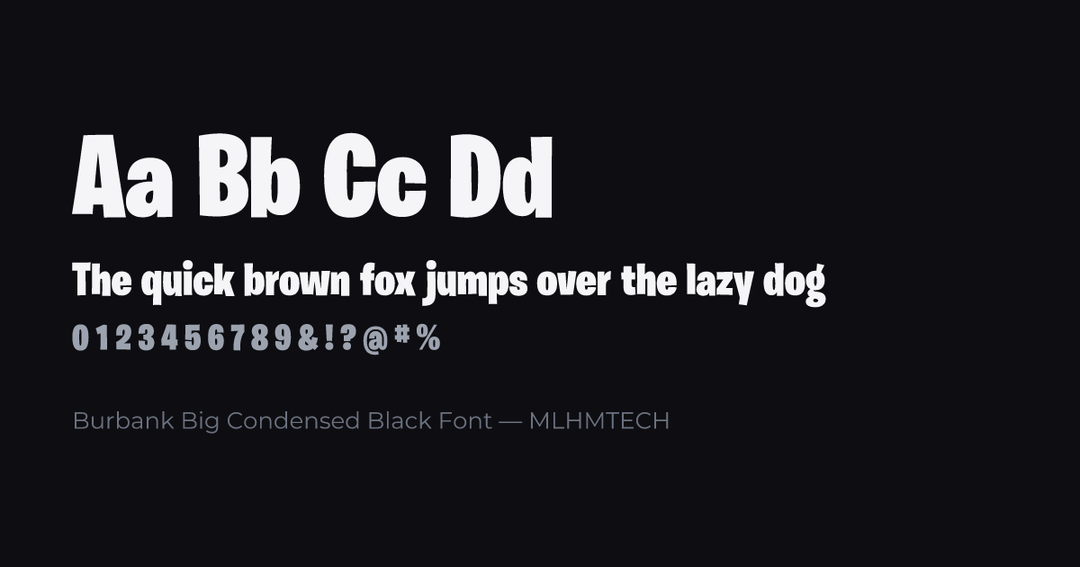
Burbank Big Condensed Black Font
Burbank Big Condensed Black is a bold, condensed sans-serif font that commands attention. Ideal for titles, posters, and branding.
Burbank Big Condensed Black is a high-impact display font with a condensed, bold design. Its strong vertical strokes and tight letterforms make it perfect for headlines, posters, and any project that needs to stand out.
Whether you're creating a cinematic title sequence, a bold poster, or a memorable logo, Burbank Big Condensed Black delivers a modern, confident look that grabs attention.